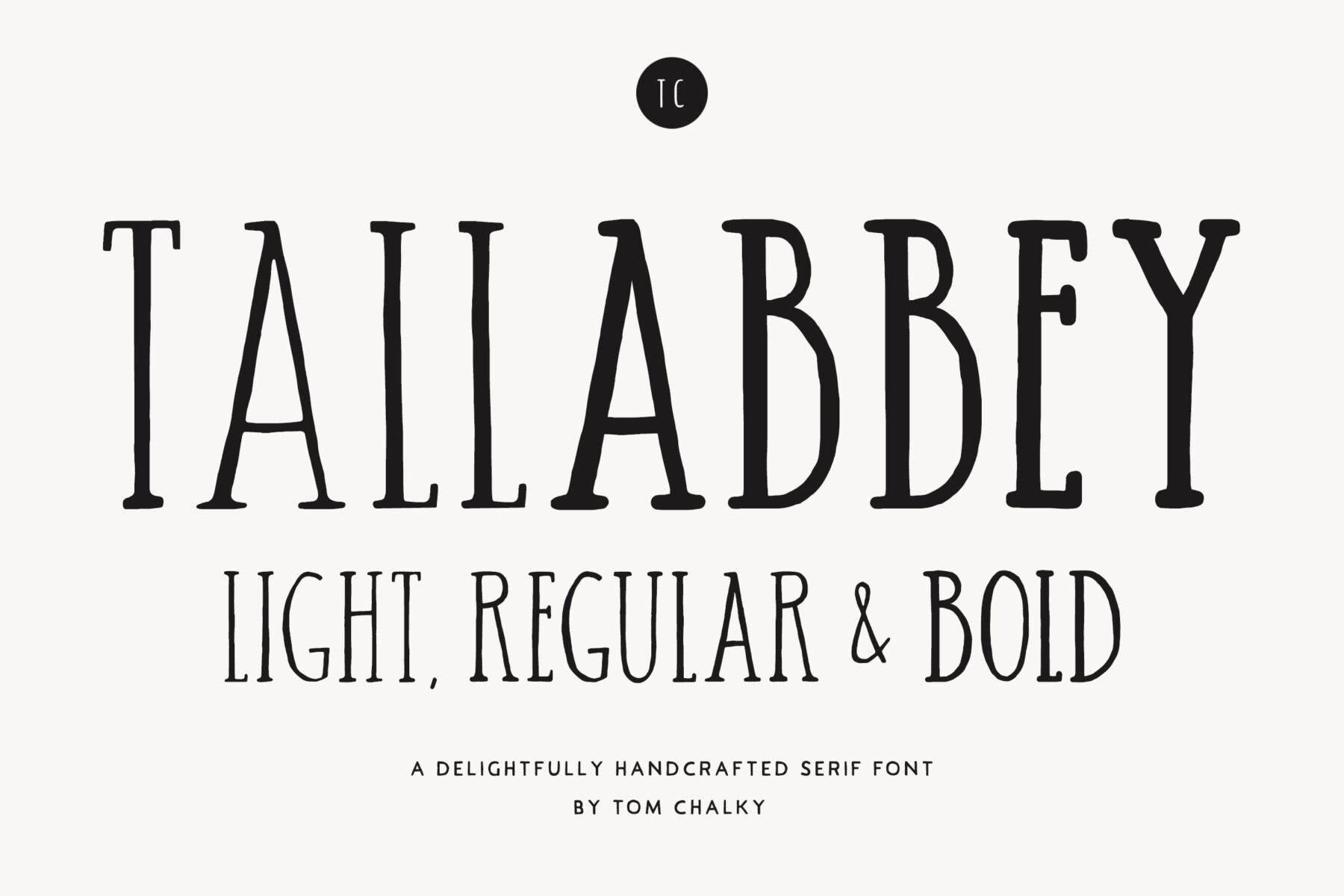
Tall Abbey Serif – Handwritten Font
Proudly introducing ‘TC Tall Abbey Serif’ – A quirky, tall, authentic, and warm font family full of perfect imperfections and personality. Oozing all the joys of handwritten typography, Tall Abbey effortlessly infuses a human touch into our digital world and your design projects. An entirely uppercase typeface where the lowercase glyphs offer slight variations of its counterpart, improving the handwritten effect. Psst! If you prefer the sans-serif style, we do offer Tall Abbey Sans!